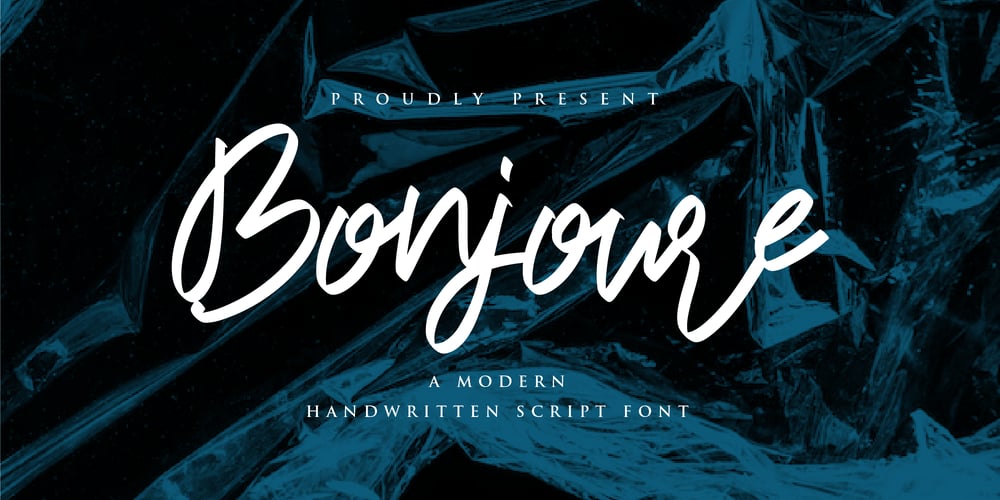
Bonjoure Font Family was designed by Ahmad Cahyono and published by Velocitype. Bonjoure contains 1 styles and family package options. Bonjoure – Handwritten Script fontBonjoure is a Handwritten Script font, will be suitable for any projects such as branding, promotional ads, quotes design, merchandise, social media and much more. make your work or your business to high level!!! special events, and all your other lovely projects that need beautiful handwriting taste.Features :- Uppercase & Lowercase- Numerals- Punctuations (OpenType Standard)- Accents (Multilingual Characters)- Works on PC & Mac- Simple installations- Accessible in the Adobe Illustrator, Adobe Photoshop, Adobe InDesign, even works on Microsoft Word.I hope you enjoy this font. If you have any questions please don’t hesitate to drop me a message :)Thank you